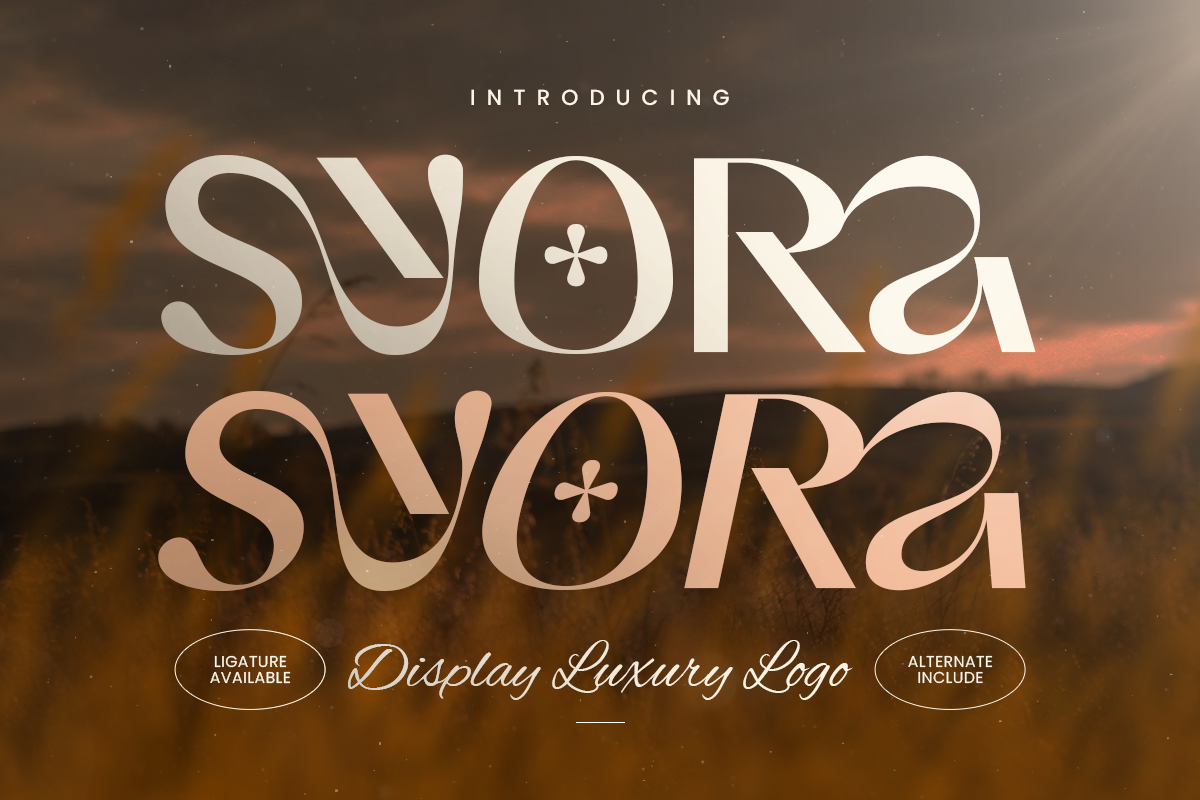
Syora
-Display Luxury Logo
Syora – Display Luxury Logo
Syora is a display luxury logo font designed to create an elegant, sophisticated, and memorable visual identity. With its refined letterforms and stylish display character, Syora brings a premium aesthetic that feels graceful, confident, and contemporary.
Perfect for luxury logos, fashion branding, beauty products, jewelry, perfume packaging, boutique identities, editorial layouts, and premium invitations, Syora adds an upscale touch to every composition. Its distinctive display style also works beautifully for headlines, posters, signage, social media graphics, advertising, and print materials.
As a luxury display font, Syora is especially suited for fashion labels, cosmetics, lifestyle brands, wedding projects, hospitality, and high-end retail. Whether used for a sophisticated wordmark or an elegant campaign headline, Syora helps designers build a polished and recognizable brand identity across digital and print applications.
Syora – Display Luxury Logo Features
• Elegant display letterforms with a luxurious visual character
• Stylish design created for sophisticated logo applications
• Ideal for luxury branding, fashion, beauty, and editorial projects
• Perfect for logos, packaging, invitations, posters, and headlines
• Refined personality for premium and high-end visual identities
• OpenType features for creative typographic flexibility
Create an unforgettable visual identity with Syora – a stylish luxury display font designed for premium logos and branding. ✨